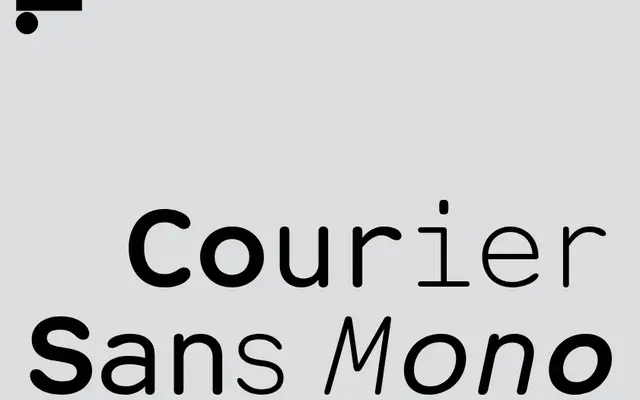
LL Courier Sans Mono
Lineto · James Goggin · 2001
LL Courier Sans Mono specimen from Lineto
A sans-serif derived from Courier by removing every serif, first made as a student exercise in 1994 and later rebuilt as a true monospace in 2016.
James Goggin created the original as a deadpan riposte to a 'Courier only' brief at Ravensbourne in 1994, simply cutting the serifs from the system font. The first commercial release in 2001 used proportional spacing for visual harmony, but the 2016 redraw restored genuine fixed-width metrics, tying it back to its typewriter origins. Light and Regular weights are offered with italic cuts, and a separate proportional sibling, LL Courier Sans, carries the non-monospaced lineage forward.
A monospaced sans derived from Courier by removing all serifs, deliberately reconnected to its typewriter roots in the 2016 redraw with true fixed-width spacing.